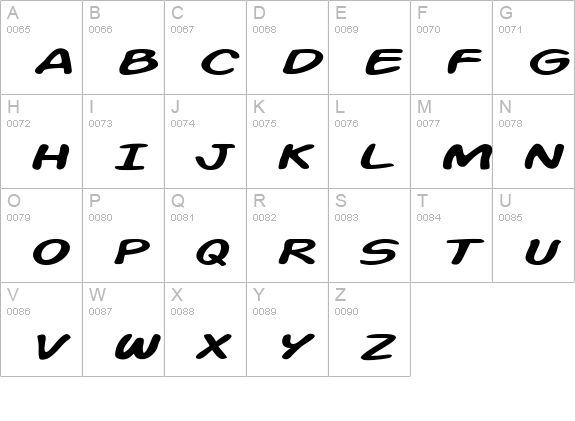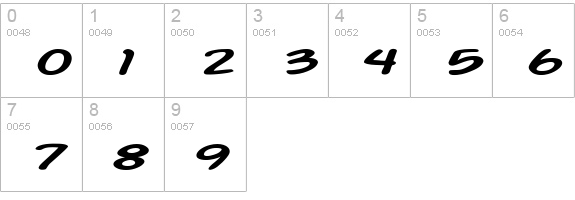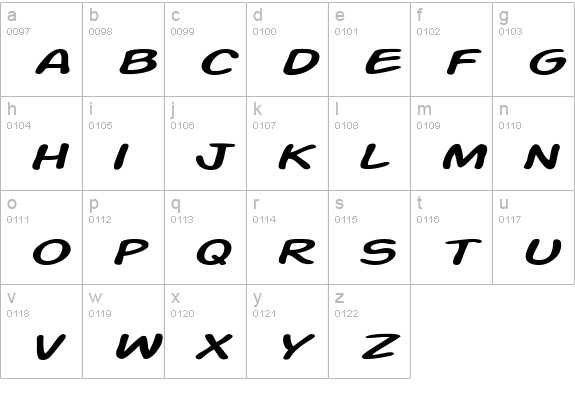
Action Man Extended Italic Font Details
Action Man Extended Italic is a distinctive, extended-width, italic variant in the Action typeface family \xE2\x80\x94 well suited to design and typography projects.
Action Man Extended Italic is a dynamic and bold font that exudes energy and movement. With its strong slanted style and elongated letterforms, this font is perfect for creating eye-catching designs that command attention. Whether you're designing posters, banners, or logos, Action Man Extended Italic will add a touch of flair and excitement to your projects. The best part? This font is available for free download at FontsMarket.com. So go ahead and grab your copy today to take your designs to the next level with Action Man Extended Italic.